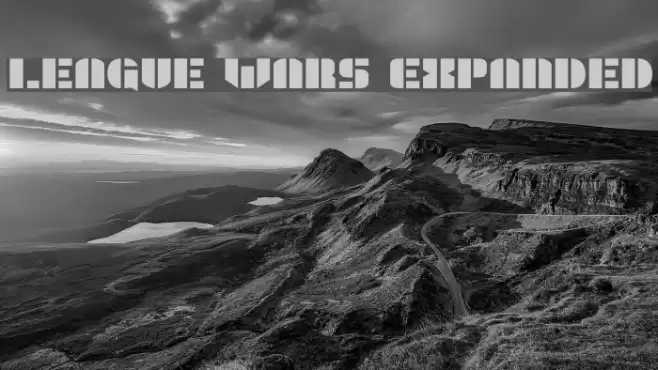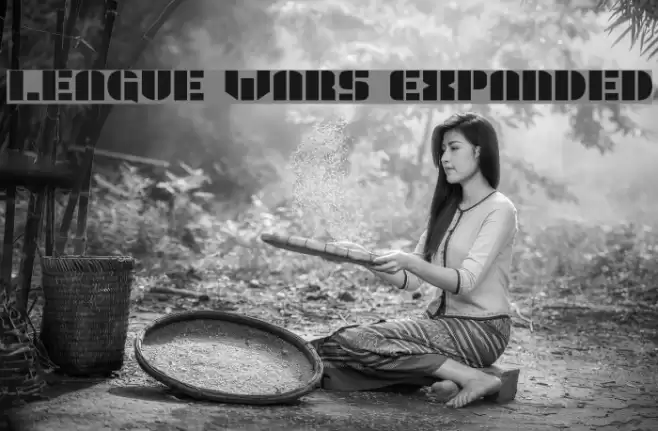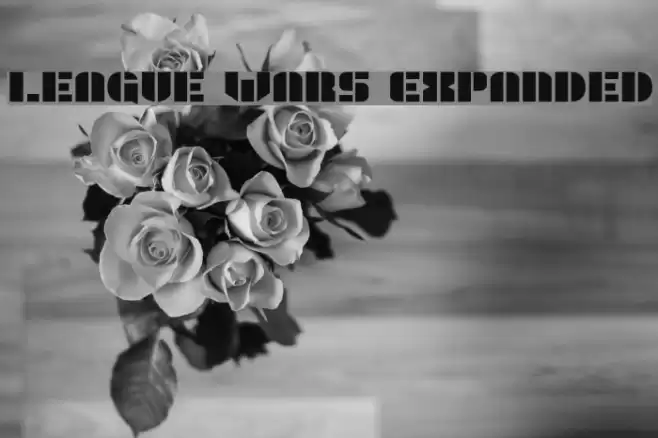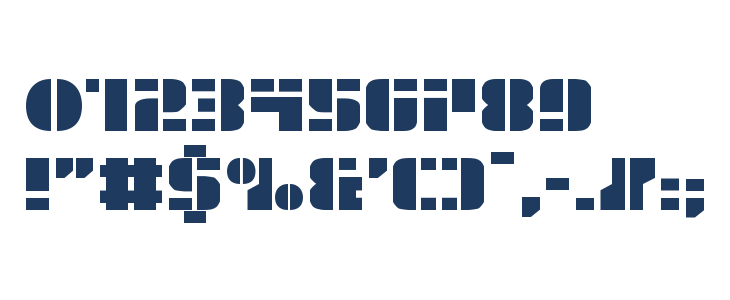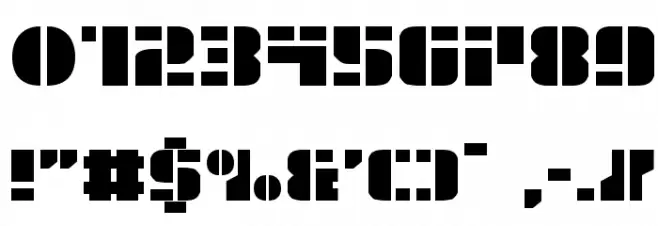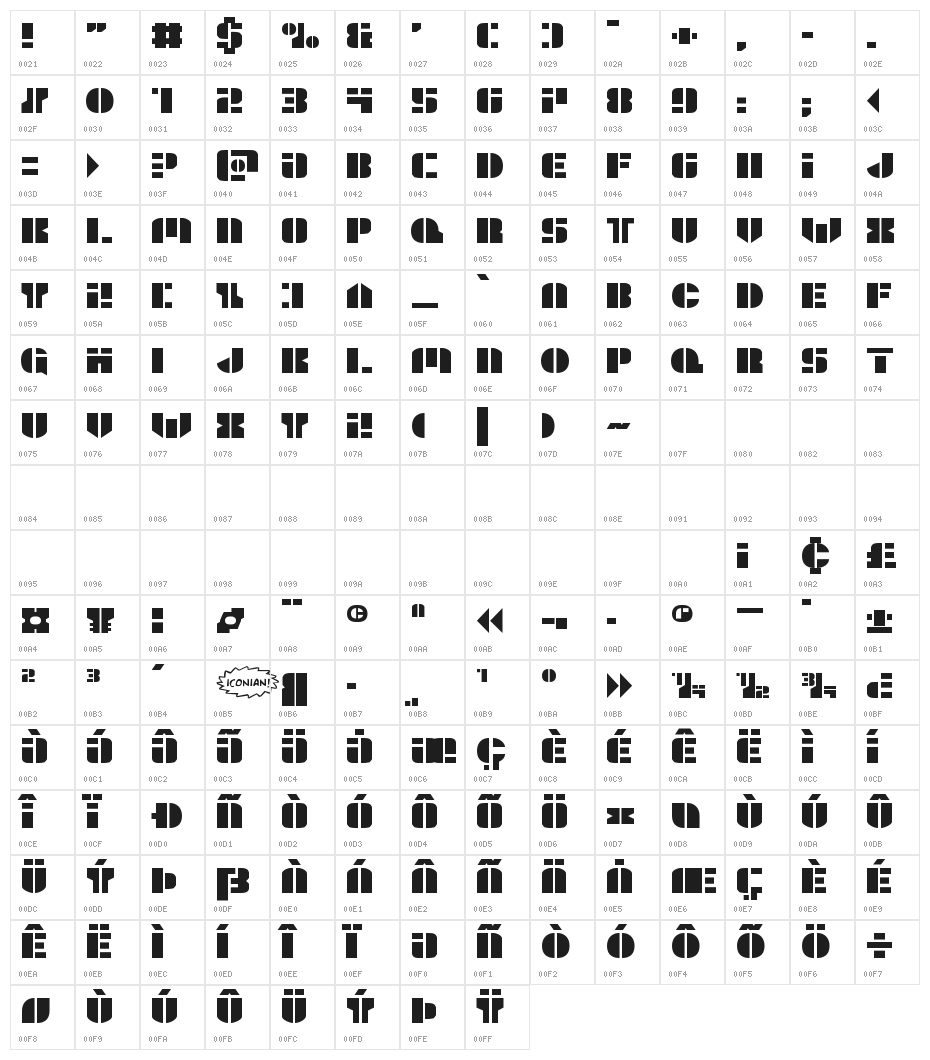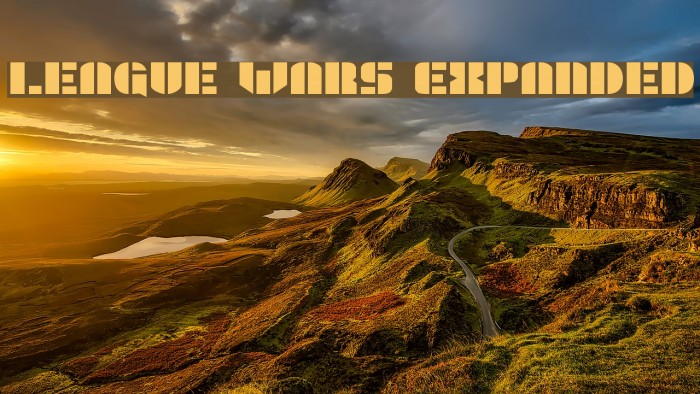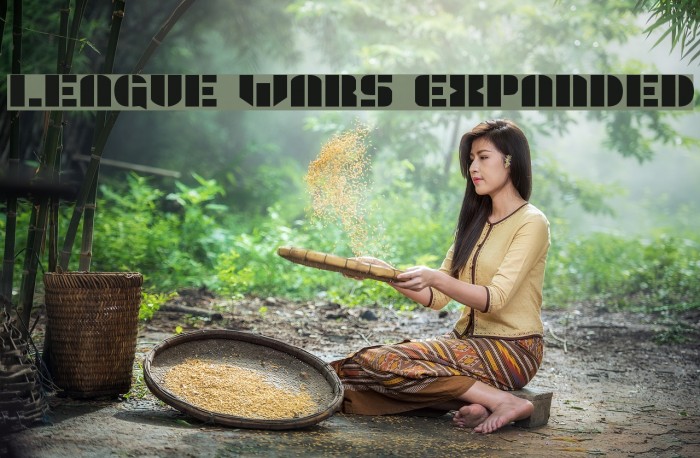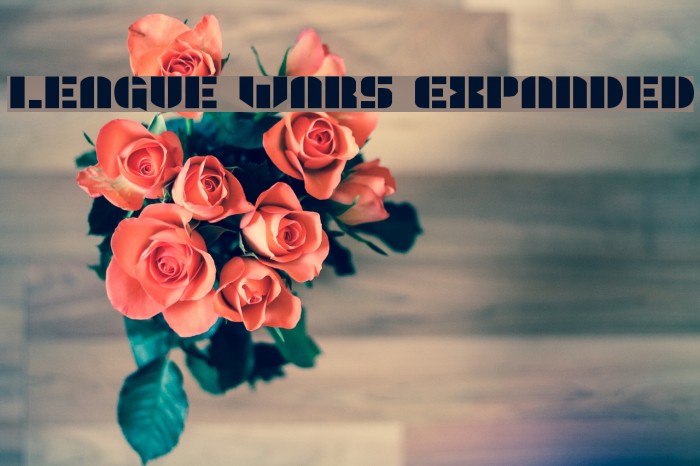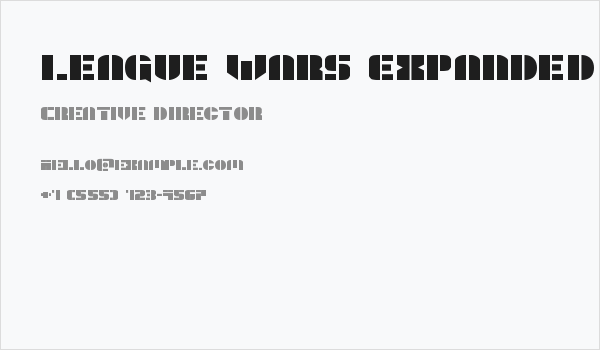
League Wars Expanded Font
League Wars Expanded Description
This font is a bold, geometric display typeface characterized by its blocky and angular shapes. The letters are constructed with thick, uniform strokes, creating a strong and impactful presence. The design features sharp edges and a futuristic aesthetic, making it suitable for attention-grabbing headlines and titles. The consistent stroke width and lack of curves give it a mechanical and industrial feel, while the unique cutouts and angles add a modern twist. The font's style is reminiscent of stencil or military-inspired designs, emphasizing strength and boldness.
A bold, geometric display font with a futuristic and industrial aesthetic from Uncategorized fonts.
- Proposed Projects: Ideal for use in sci-fi movie posters, video game titles, branding for tech companies, or any project requiring a strong, modern look.